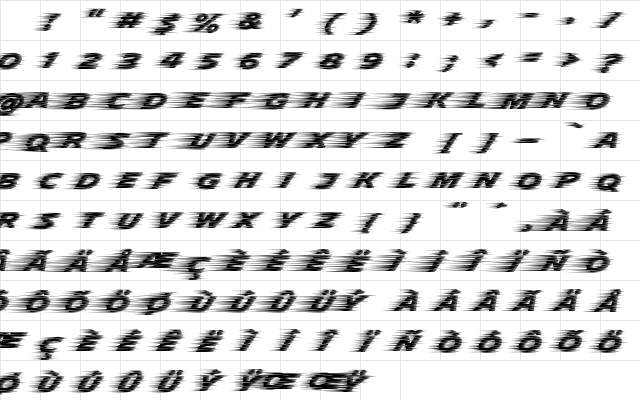
Braaap is a composed and adaptable typeface that performs quietly and consistently across a wide range of design contexts.
Pro Tip: Use Braaap in both headline and body roles to test its range before committing to a single application.